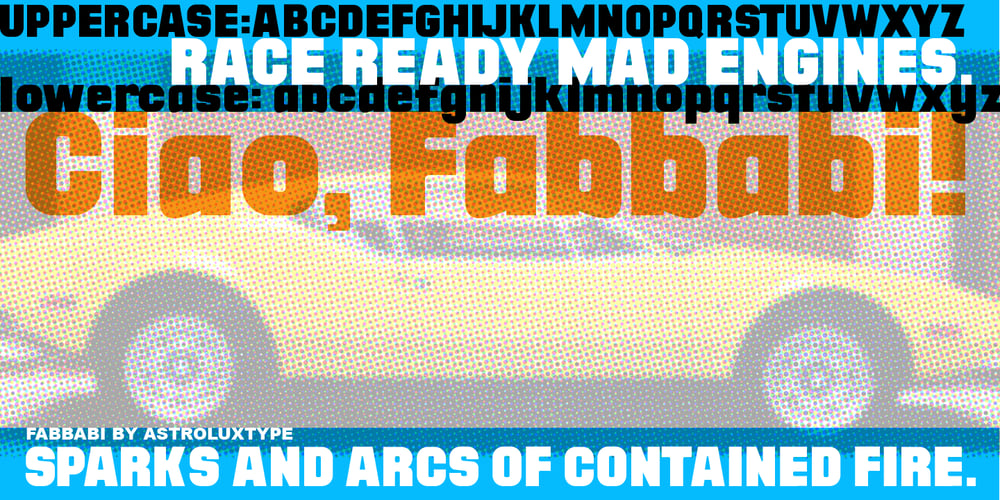
Fabbabi Font Family was designed by Glenn Parsons and published by astroluxtype. Fabbabi contains 1 styles and family package options. Fabbabi is a vintage bold retro-font suggested uses would be for headlines that catch the eye. The glyphs are hard edged with soft corners that makes for a fun playful look in the uppercase version and an useful display font using the lowercase letterforms for subheads and the like. Slightly condensed, this bold font applied to projects that need an attention grabbing headline but expresses the fun of the info being convened. Best used larger than 42 points in size. Fabbabi is a wonderful, beautiful and fabulous big baby of a font- Ciao!